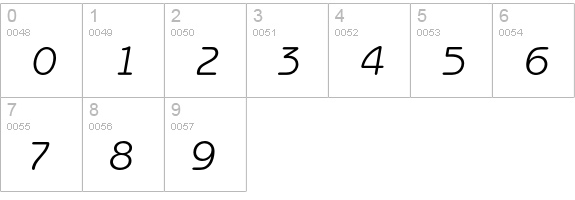
Benguiat Gothic* Book Italic is a comfortable, highly readable, italic variant in the Benguiat typeface family \xE2\x80\x94 well suited to long-form body text, articles, and editorial content.
Benguiat Gothic* Book Italic font exudes elegance and sophistication with its sleek and stylish design. The italicized characters add a touch of flair and modernity to this classic typeface. Perfect for conveying a sense of professionalism and charm, this font is ideal for a wide range of design projects. What's even better is that Benguiat Gothic* Book Italic font is available for free download at FontsMarket.com. Now you can easily access this beautiful font and elevate your creations with its unique aesthetic. Whether you're working on branding, editorial design, or any other creative project, Benguiat Gothic* Book Italic font is sure to make a lasting impression. Download it today and unleash your creativity!